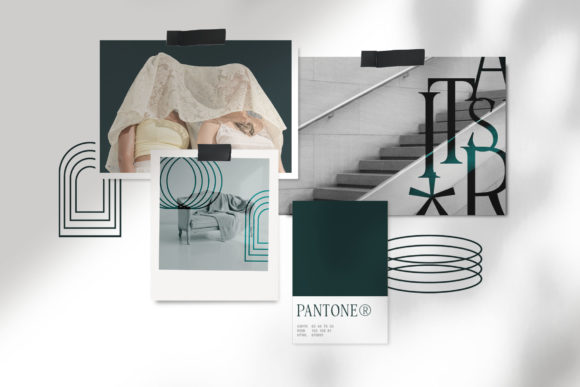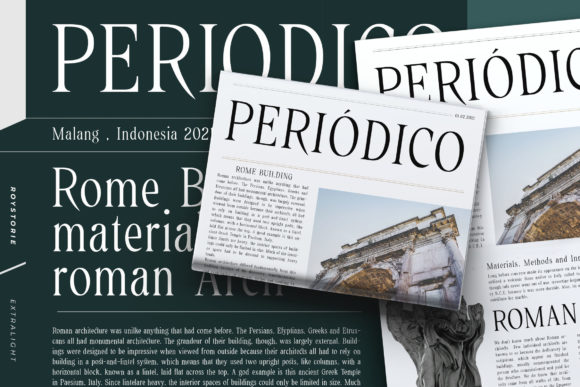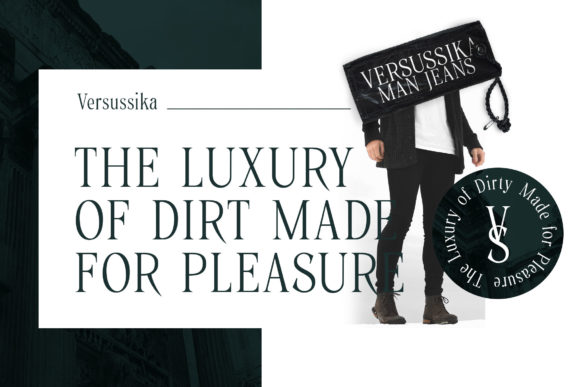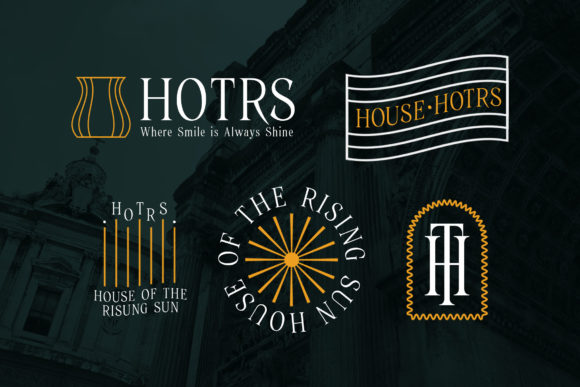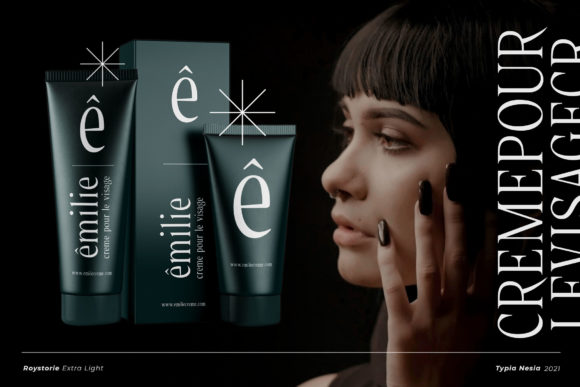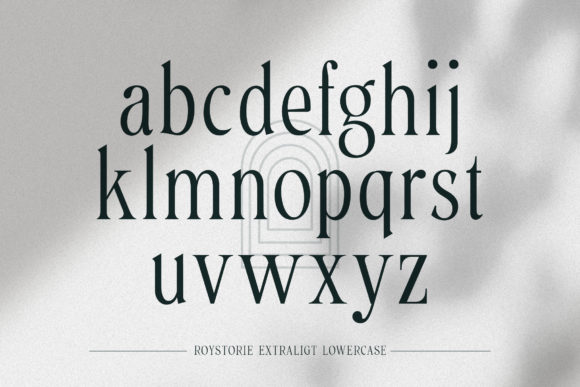
Introduction to Roystorie Font
Enter the Roystorie Font, a bold, sharp, and authentic serif font that’s designed to elevate your creative project to the next level. With its stylish alternates and ligatures, this font is the perfect match for any project that demands high-quality typography.
Key Features of Roystorie Font
- Designed with a unique aesthetic, perfect for modern design projects
- Perfect for designers and artists looking for a distinctive design element
Honest Review: Roystorie Font
As a designer, I’m always on the lookout for high-quality design resources to elevate my creative projects. The Roystorie Font is one such gem that caught my attention. Its elegant and sophisticated style makes it perfect for a variety of design applications, from branding to editorial content.
Here are some aspects that I particularly liked about the Roystorie Font: ✨
- Unique and stylish design that sets it apart from other fonts
- The font family is relatively small, which may not be ideal for extensive typography projects
- The design may not be suitable for informal or playful projects, as it leans towards a more formal tone
Overall, I’m impressed with the Roystorie Font and would definitely recommend it to designers looking for a high-quality, free design resource. While it may have some limitations, its unique style and versatility make it a valuable addition to any design toolkit.